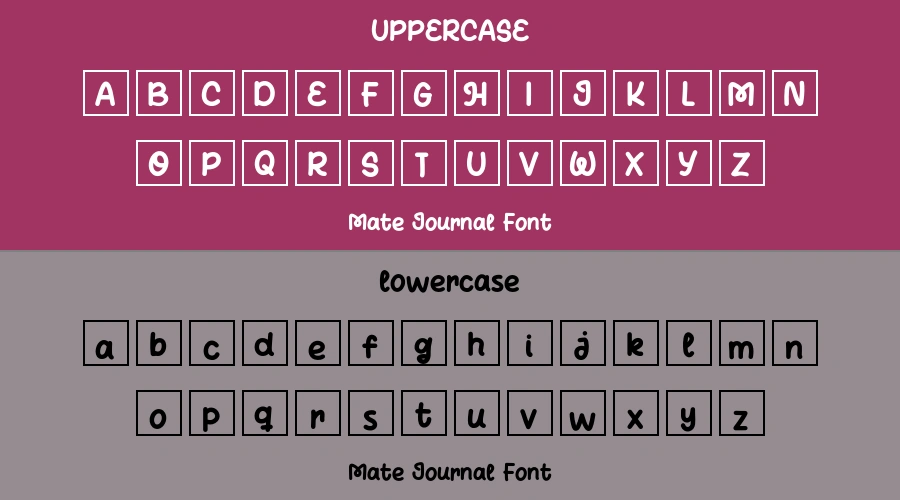
About Mate Journal Font
When typographic excellence matters most, Mate Journal Font delivers through its thoughtful blend of balanced weights and authenticity. Specially crafted for packaging hero, it offers the longevity and artistic merit required for sophisticated design work. Every detail serves a purpose.
The character set showcases thoughtful details like monoline strokes alongside functional stylistic sets. This proves especially valuable in artistic statements, where large format rendering directly influences results. Particular attention was paid to x-height proportion and contemporary relevance during development.